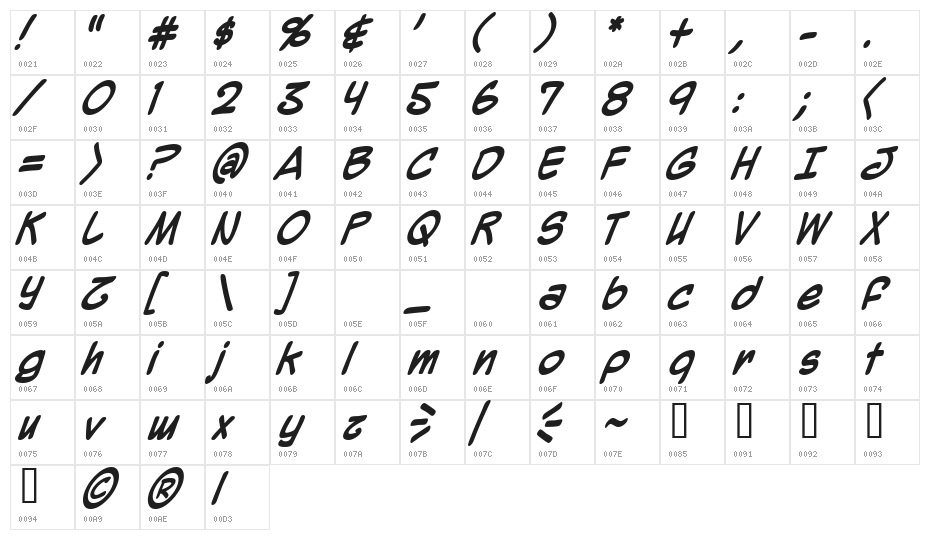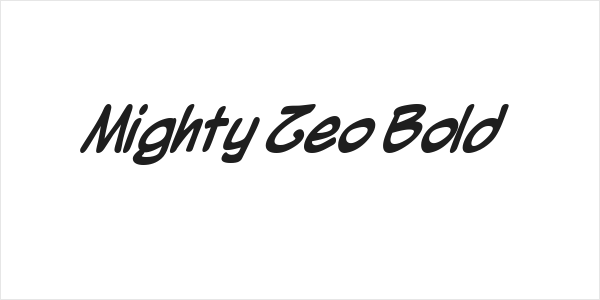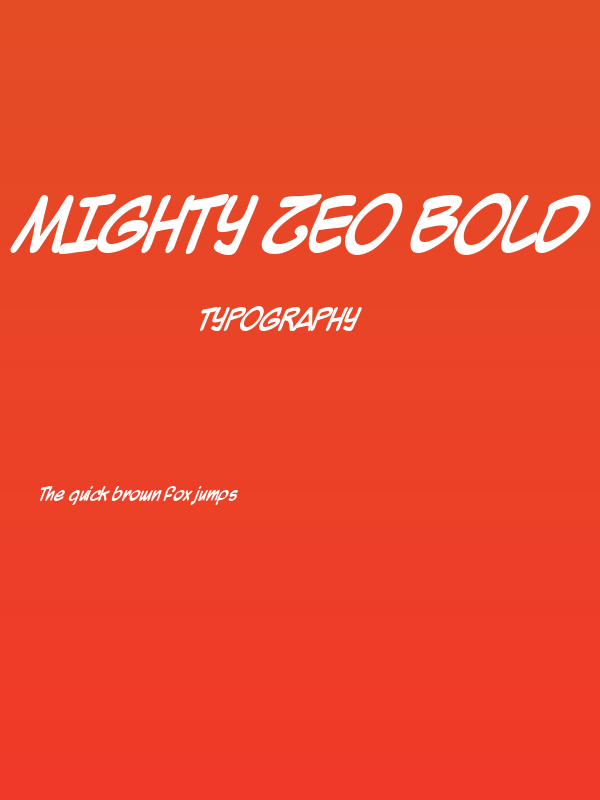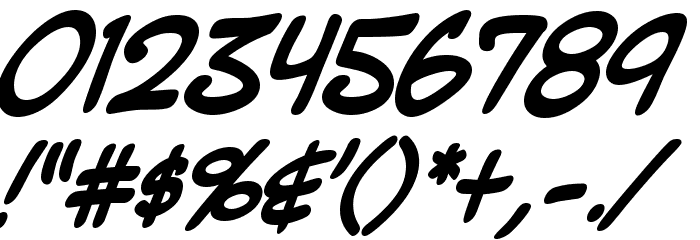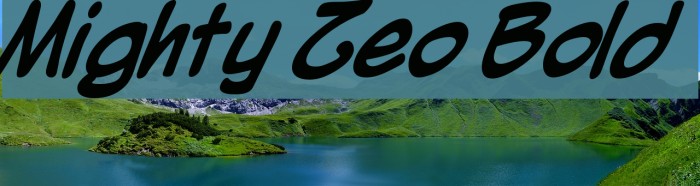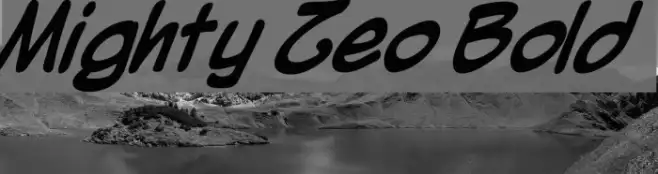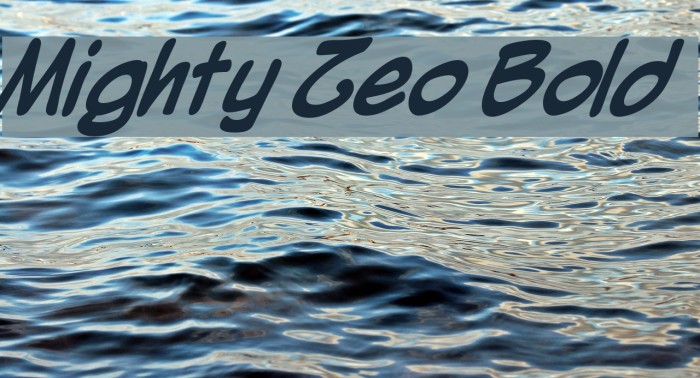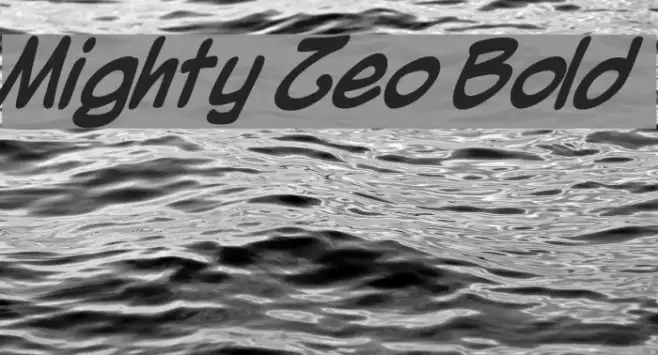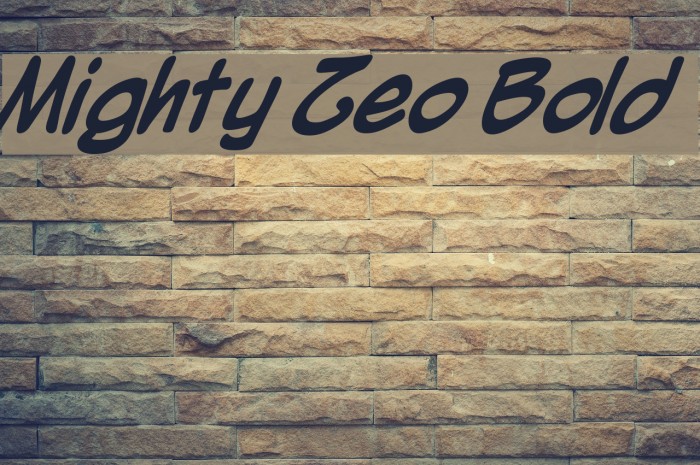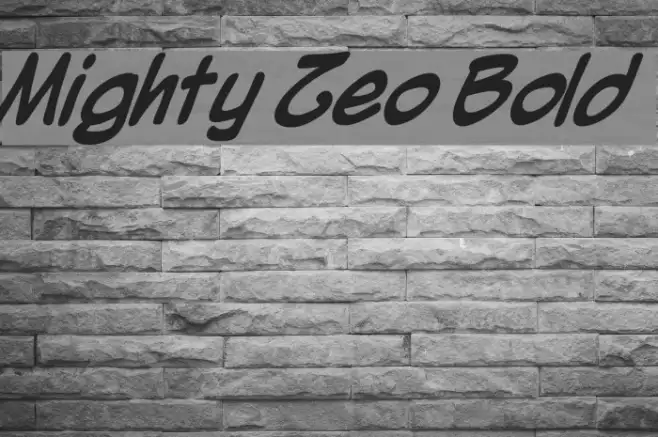
Mighty Zeo Bold Font
Mighty Zeo Bold Description
This font exhibits a bold and dynamic script style with a strong presence. The characters are slightly slanted, giving a sense of motion and energy. Each letter is crafted with smooth curves and a consistent stroke width, contributing to its bold appearance. The uppercase letters are prominent and well-defined, while the lowercase letters maintain a cohesive flow. Numbers and special characters are designed to match the overall aesthetic, ensuring uniformity across all elements. The font's style is both modern and expressive, making it suitable for impactful designs.
| Proposed Projects | Ideal for branding, advertising, posters, and any design requiring a bold, energetic script. |